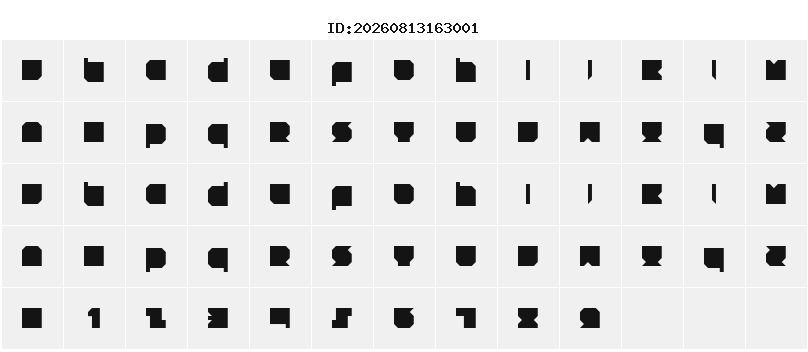
• Font Name: RNS TNT
• Full Font Name: RNS TNT
About RNS TNT.ttf
RNS TNT.ttf is a modern, elegant sans-serif font designed for ultimate readability and visual harmony. Perfect for branding, headlines, web design, and print materials.